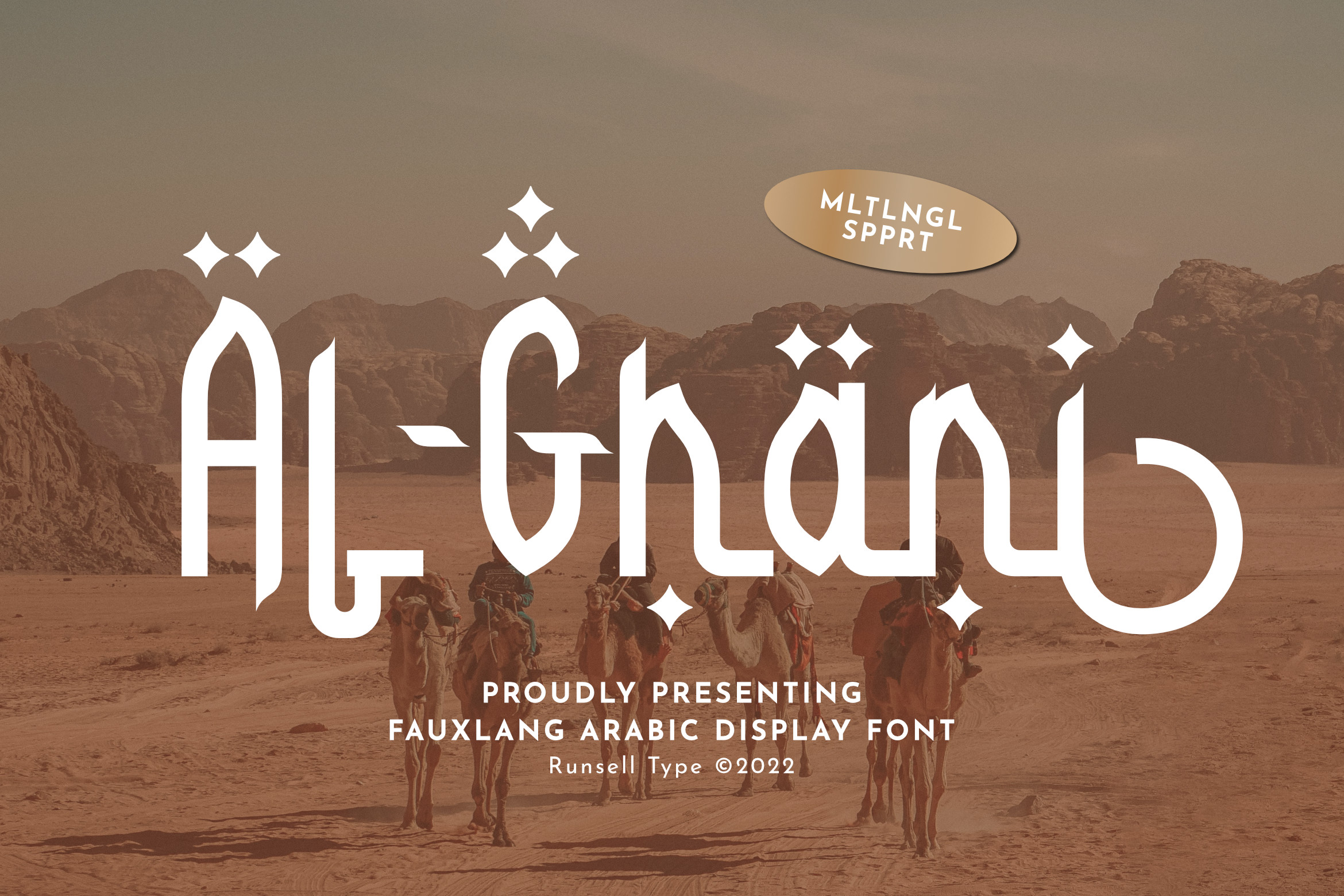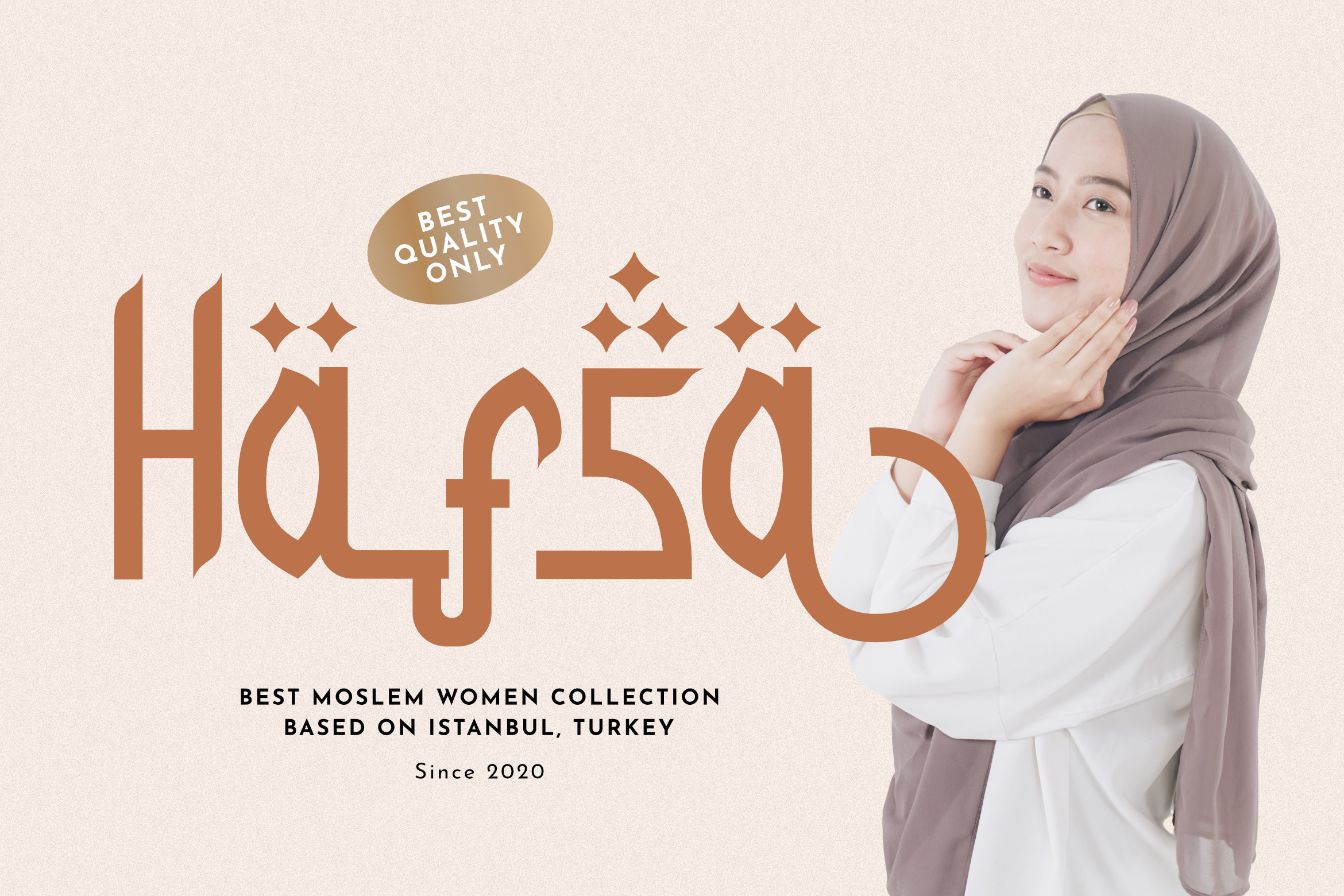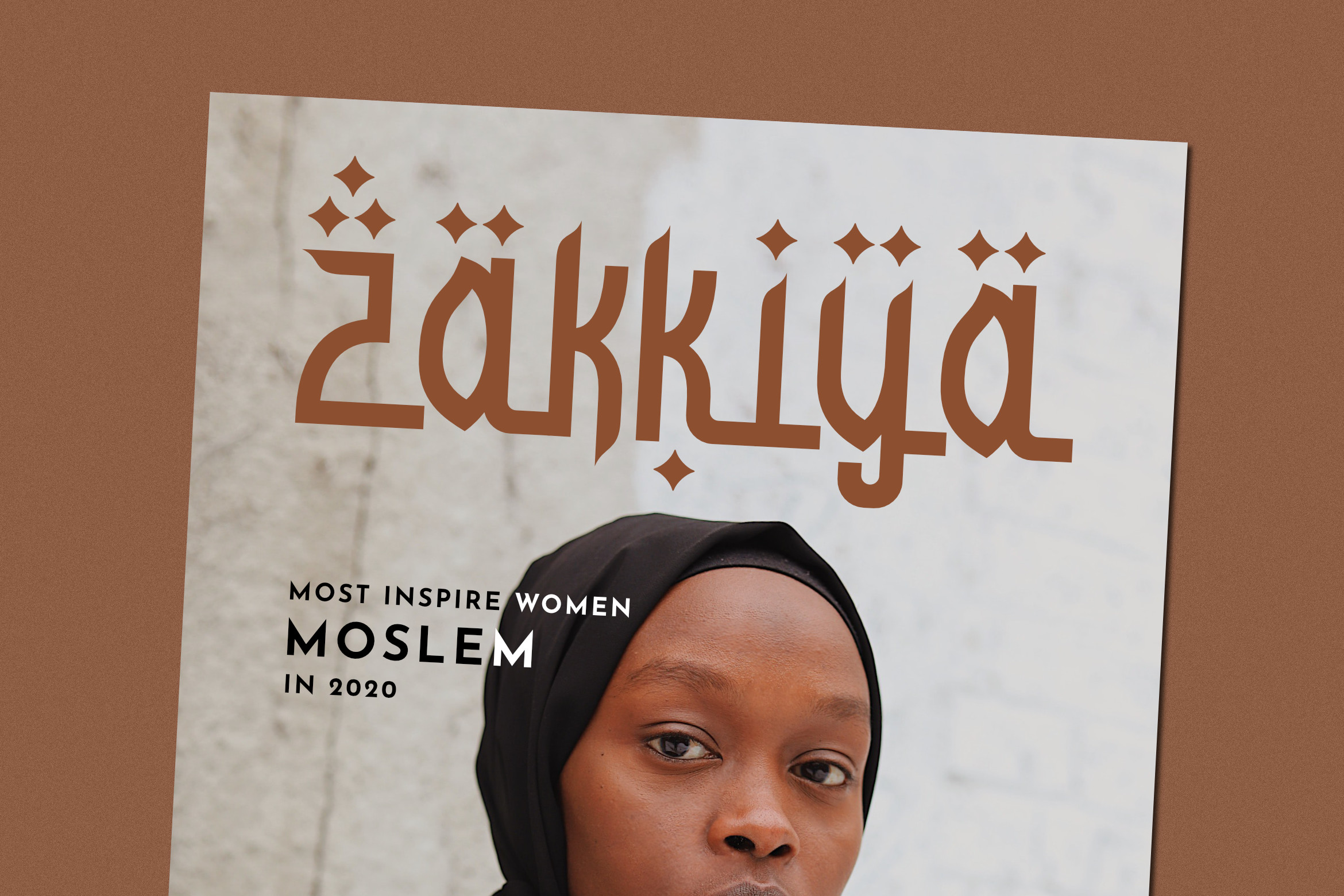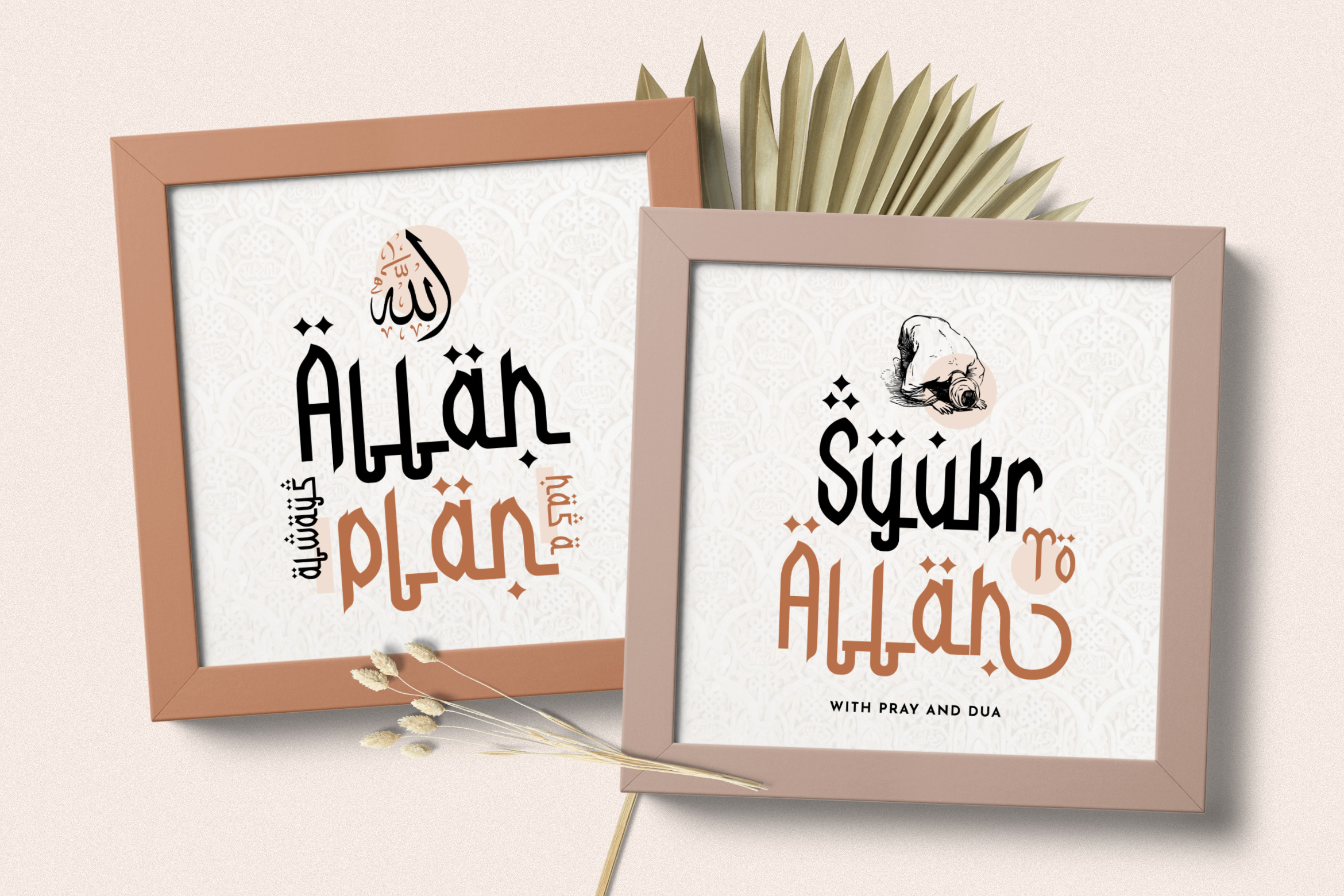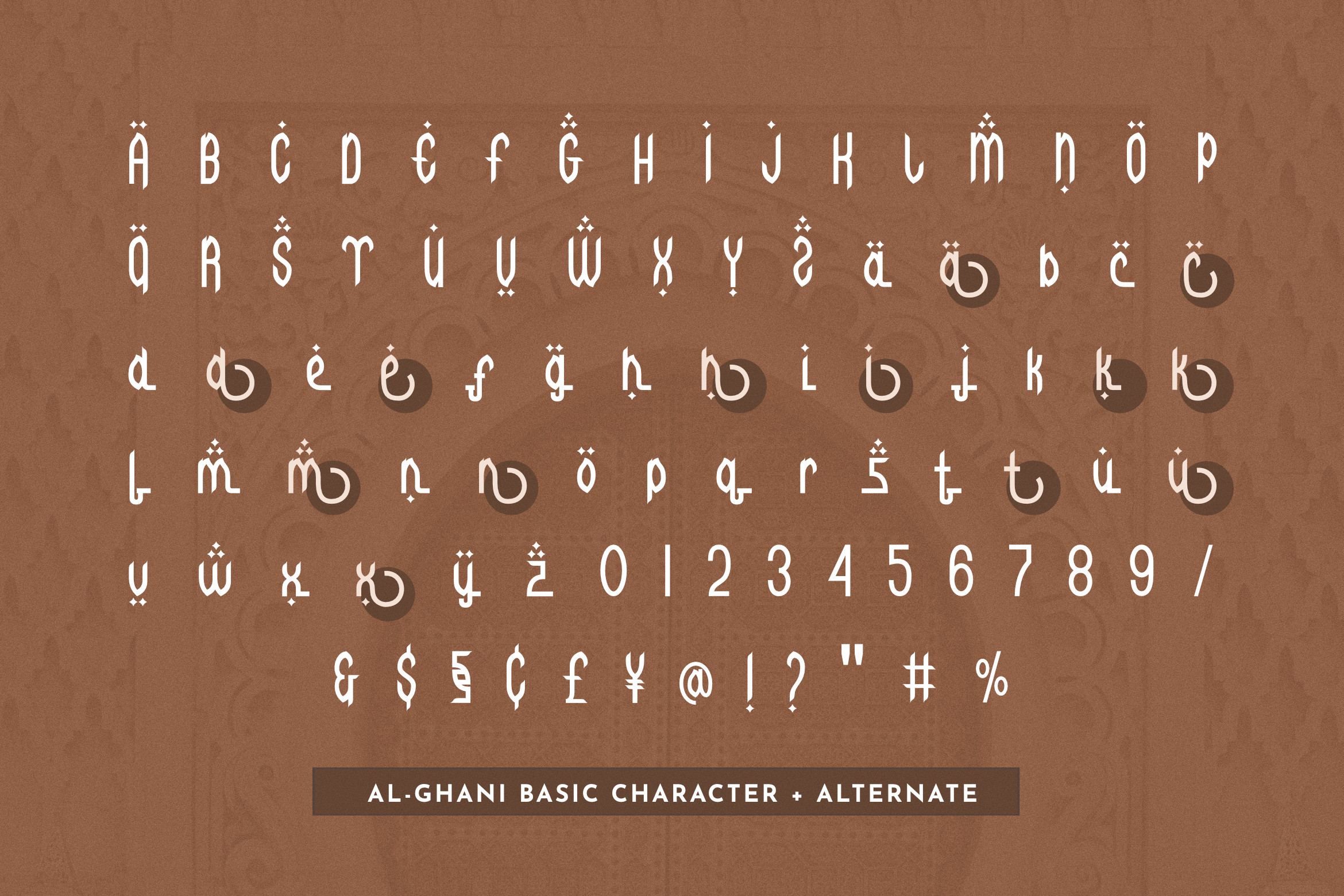
Al-Ghani is a striking display font inspired by Arabic calligraphy and ornamental Kufic elements, designed to deliver a faux-Arabic aesthetic with contemporary flair. With its extended letterforms, geometric accents, and dotted diacritics reminiscent of Islamic visual culture, Al-Ghani perfectly balances tradition with bold modernism. The result is a highly stylized font that evokes cultural richness, ideal for Middle Eastern branding, Ramadan campaigns, or editorial titles related to Islamic heritage.
Featuring multilingual support and alternate characters, Al-Ghani offers excellent versatility for designers aiming to convey elegance, mystery, or sacred tones. Its strong vertical rhythm and stylized alternates make it a compelling choice for logos, packaging, magazine titles, and decorative artworks. Whether used in religious-themed merchandise or upscale fashion branding, this typeface stands out with a powerful cultural identity.